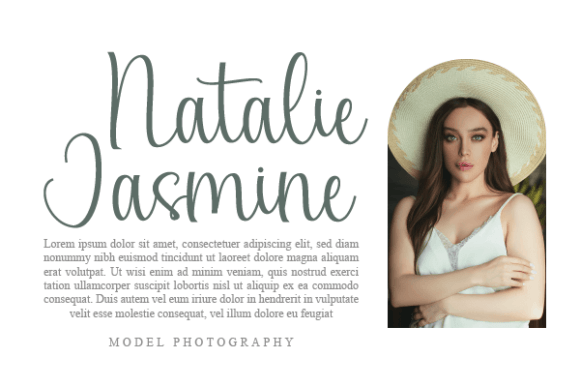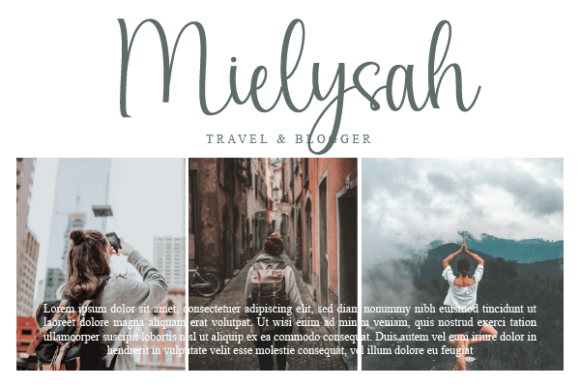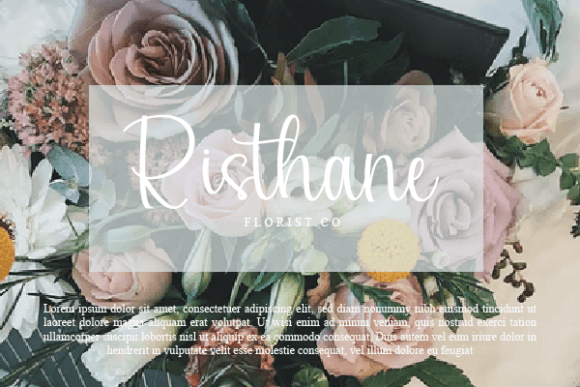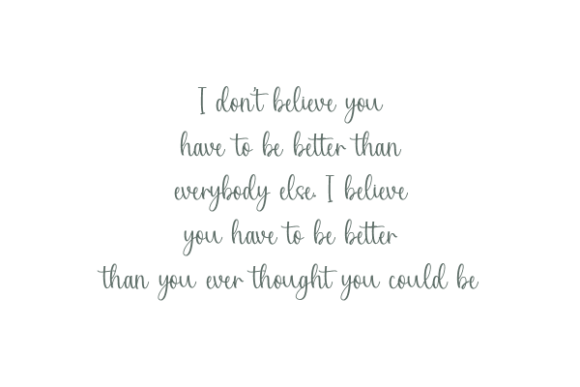
Introduction to Gliter Signature Font Font
Fonts play a crucial role in design, and the Gliter Signature Font font is a typeface that brings both character and versatility to any project. Whether you’re working on a branding project, a website, or a print design, the Gliter Signature Font font offers a unique style that can elevate your work.
Gliter Signature is a beautiful and light handwritten font with a unique feel and a stunning impact.
It will add a luxury spark to any design project that you wish to create .
Key Features of Gliter Signature Font Font
Why Choose Gliter Signature Font Font?
The Gliter Signature Font font is more than just a typeface – it’s a design tool that helps you communicate your message with style and clarity. Its unique character set and versatile design make it suitable for a wide range of applications, from elegant invitations to bold headlines.
With its carefully crafted letterforms and balanced proportions, the Gliter Signature Font font ensures readability and visual appeal across all mediums.
What makes Gliter Signature Font font special?
The Gliter Signature Font font stands out with its unique design, exceptional readability, and versatility across various design applications.